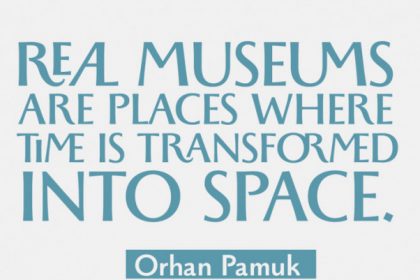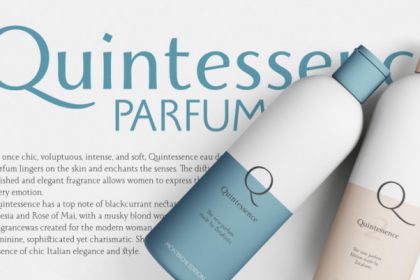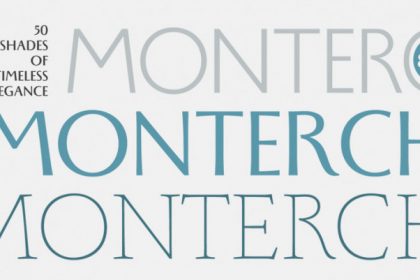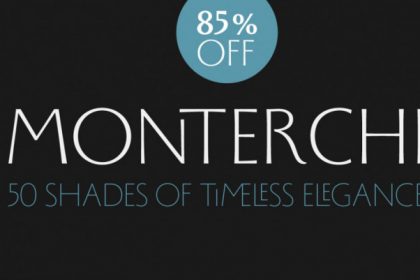
Monterchi Font Family
It will not take a lot of your time in the product design process, or the product introduction to the customer, I would like to introduce you to a beautiful typography, it can make a mark for your product. Introducing Monterchi Font. In 1459, while visiting his dying mother, italian painter Piero della Francesca spent seven days creating a fresco of a pregnant madonna in a small country church in the hilltown of Monterchi (Italy). Hailed today as one of the masterpieces of Italian Renaissance, the fresco was given a new branding in 2019 by Art Director Riccardo Falcinelli who asked the Zetafonts team to develop a custom font for the project.
The resulting typeface system, designed by Cosimo Lorenzo Pancini together with Andrea Tartarelli and Maria Chiara Fantini as a rework of Francesco Canovaro original Beatrix Antiqua, is a 50-weights ode to the beauty of classical roman letterforms, that pairs elegant alternates and quirky ligatures with an array of design options for clear and effective editorial, signage, logo and wayfinding design.
The base display family, Monterchi, allows endless design expressions with a range of six weights from the slender thin to the strong extrabold, all with matching italics and an array of over one hundred discretionary ligatures. A fine-tuned companion Monterchi Text has been developed to excel in body use, with a larger x-height and wider spacing – clear and legible even at small sizes.